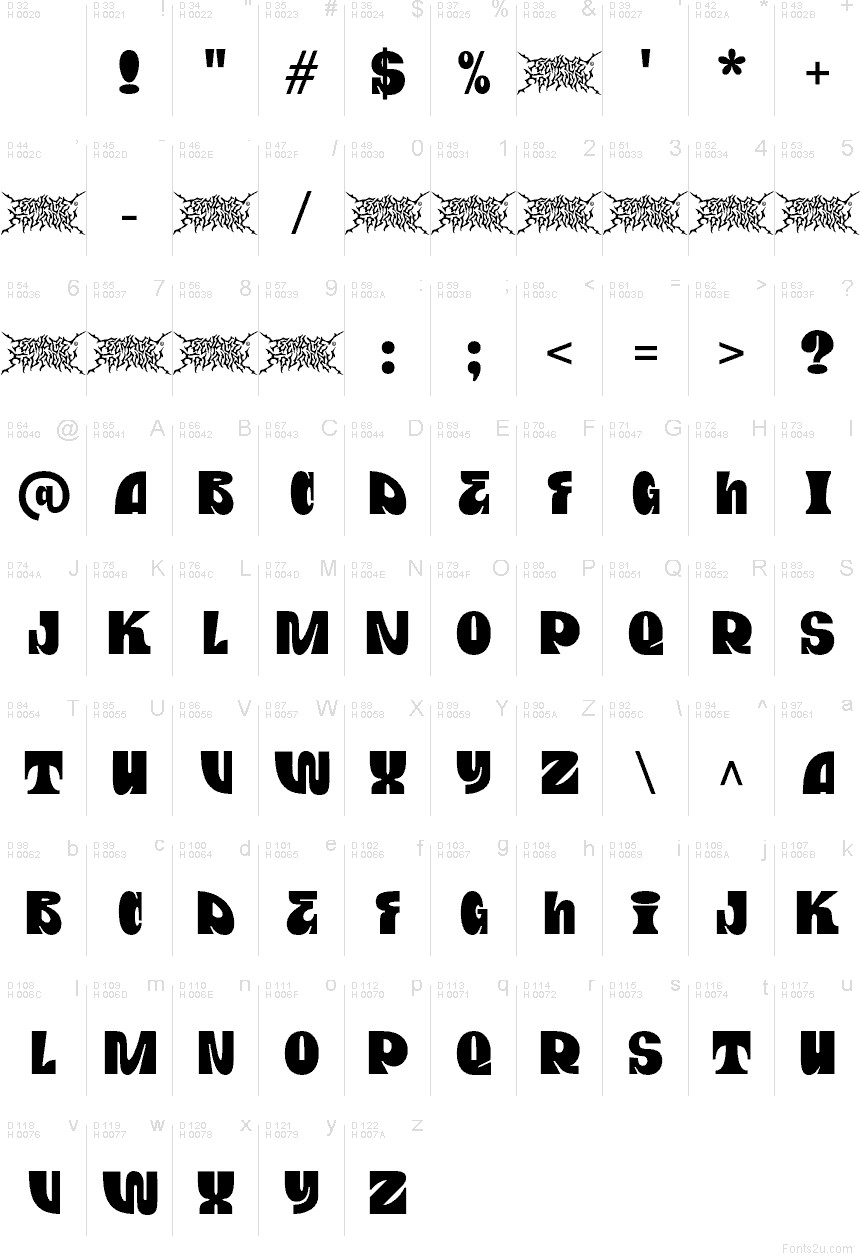
TeenageReplica
Teenage Replica font by Teenage Foundry is a free groovy display typeface that brings bold, psychedelic energy to your layouts. Its chunky, ink-heavy curves and stretched silhouettes feel like band posters wheat-pasted on city walls—loud, tactile, and slightly unruly. Every letter sways with a 70s flair, yet the tight rhythm keeps words reading as one powerful, wavy block.
Using Teenage Replica, you can crank up the attitude on music posters, festival branding, streetwear graphics, social media promos, packaging, and bold logotypes. This free font shines when you set it large and let those swollen curves breathe; pair it with a clean, neutral sans in the small text to keep things legible while the headline steals the show.